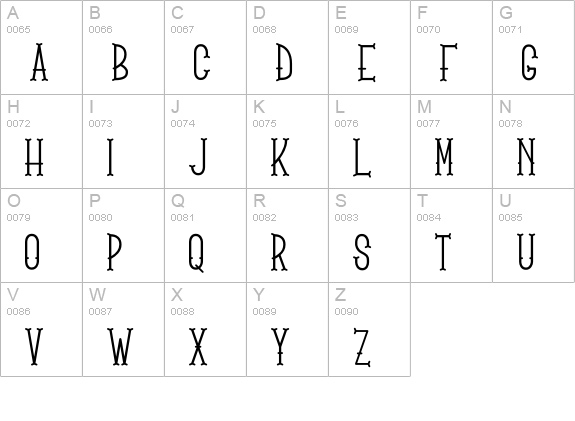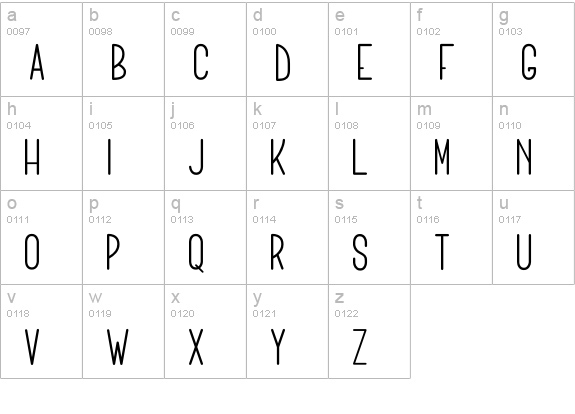
KlangdamNormal Regular Font Details
KlangdamNormal Regular is the standard, neutral variant in the KlangdamNormal typeface family \xE2\x80\x94 well suited to general body text, paragraphs, and standard typographic work.
KlangdamNormal Regular font is a modern and versatile typeface that will bring a touch of sophistication to your designs. With its clean lines and elegant curves, this font is perfect for a wide range of projects, from branding to editorial design. Whether you're creating a sleek logo or designing a stylish website, KlangdamNormal Regular will help you achieve a professional and polished look. This font is available for free download at FontsMarket.com, making it easily accessible for designers and creatives looking to elevate their work. Don't miss out on the opportunity to add this beautiful font to your collection and take your projects to the next level with KlangdamNormal Regular.